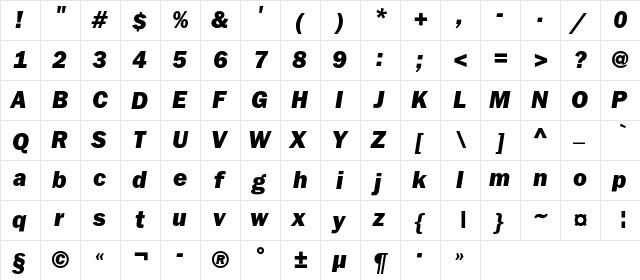
FranklinGothicHeavyC Italic Font Preview
FranklinGothicHeavyC Italic
FranklinGothicHeavyC Italic Font Details
Design Context for FranklinGothicHeavyC Typeface
FranklinGothicHeavyC has the quiet confidence of well-executed sans-serif typography: versatile, unobtrusive, and dependable at any size. Its italic angle brings a sense of urgency and motion to the letterforms.
Font Pairing: Works well alongside a characterful serif or display font that can carry the expressive load while FranklinGothicHeavyC handles the functional copy.
Pro Tip: Pair FranklinGothicHeavyC with a display or serif font for headlines — its neutral character makes it an excellent supporting player in complex typographic systems.